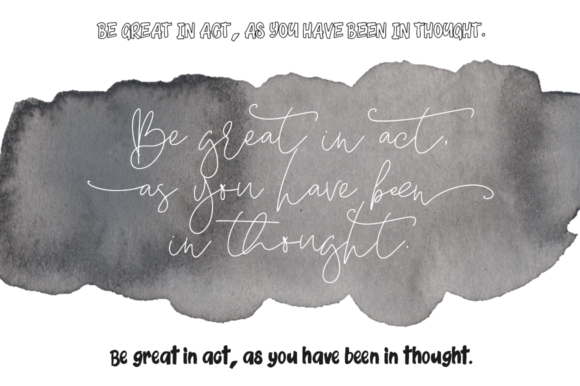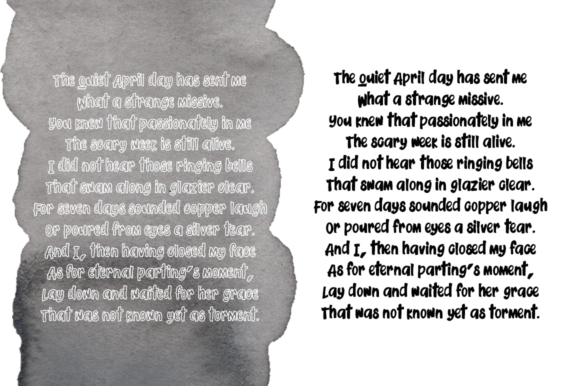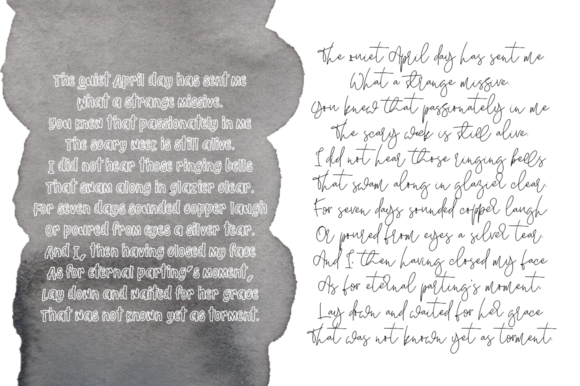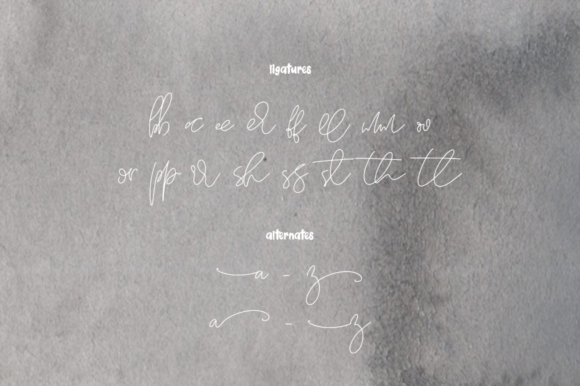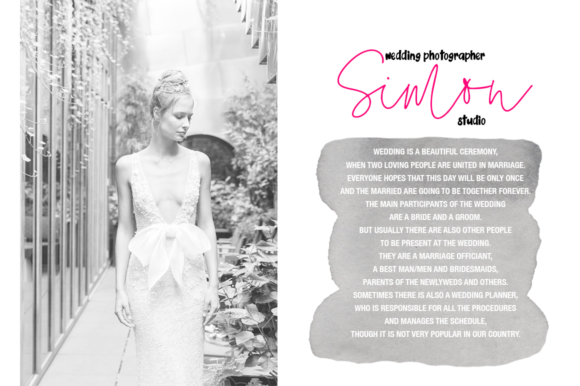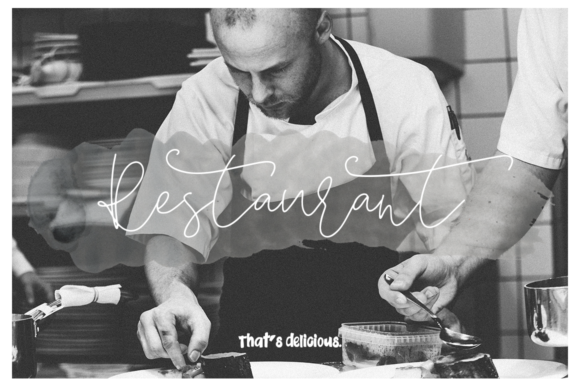
The Ultimate Guide to Canadien Monreal Font: A Designer’s New Best Friend
I’ll never forget the time I was working on a project for a client who wanted a custom design that screamed “whimsical” and “fun.” I had been searching for the perfect font for hours, but nothing seemed quite right. That was until I stumbled upon Canadien Monreal Font. It’s a cute duo font that alternates support, and it’s been a game-changer for my design projects ever since.
An Honest Review of Canadien Monreal Font
- ✨ Alternating support: This font comes with a built-in feature that allows you to alternate between different glyphs and swashes with ease.
- ✅ PUA encoded: The font is PUA encoded, which means you can access all of the glyphs and swashes without any hassle.
- 🎉 Cute and playful vibe: Canadien Monreal Font has a unique and charming personality that’s perfect for designs that need a touch of whimsy.
While Canadien Monreal Font is an amazing font, there are a few things to keep in mind:
- 🤔 Limited use cases: This font might not be the best choice for very formal or professional designs, as it’s quite playful and attention-grabbing.
- ⚠️ Requires OpenType support: To get the most out of Canadien Monreal Font, you’ll need to use a design program that supports OpenType features.
The Designer Inspiration Behind Canadien Monreal Font
Canadien Monreal Font was designed with the intention of creating a unique and playful font that would add a touch of whimsy to any design. The font’s creator was inspired by the beauty of hand-drawn typography and the need for a font that could be used in a variety of design projects.
Q: Is Canadien Monreal Font suitable for body text?
A: While Canadien Monreal Font is a beautiful font, it’s not typically suitable for body text. It’s best used for headings, titles, and other design elements that need a touch of personality.